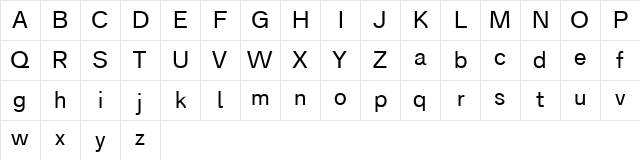
Analogue Reduced 55 Regular
Style: 55 Regular
Foundry: Ingo Zimmermann
Designer: Ingo Zimmermann
Design Context for Analogue Reduced
Analogue Reduced is a composed and adaptable typeface that performs quietly and consistently across a wide range of design contexts.